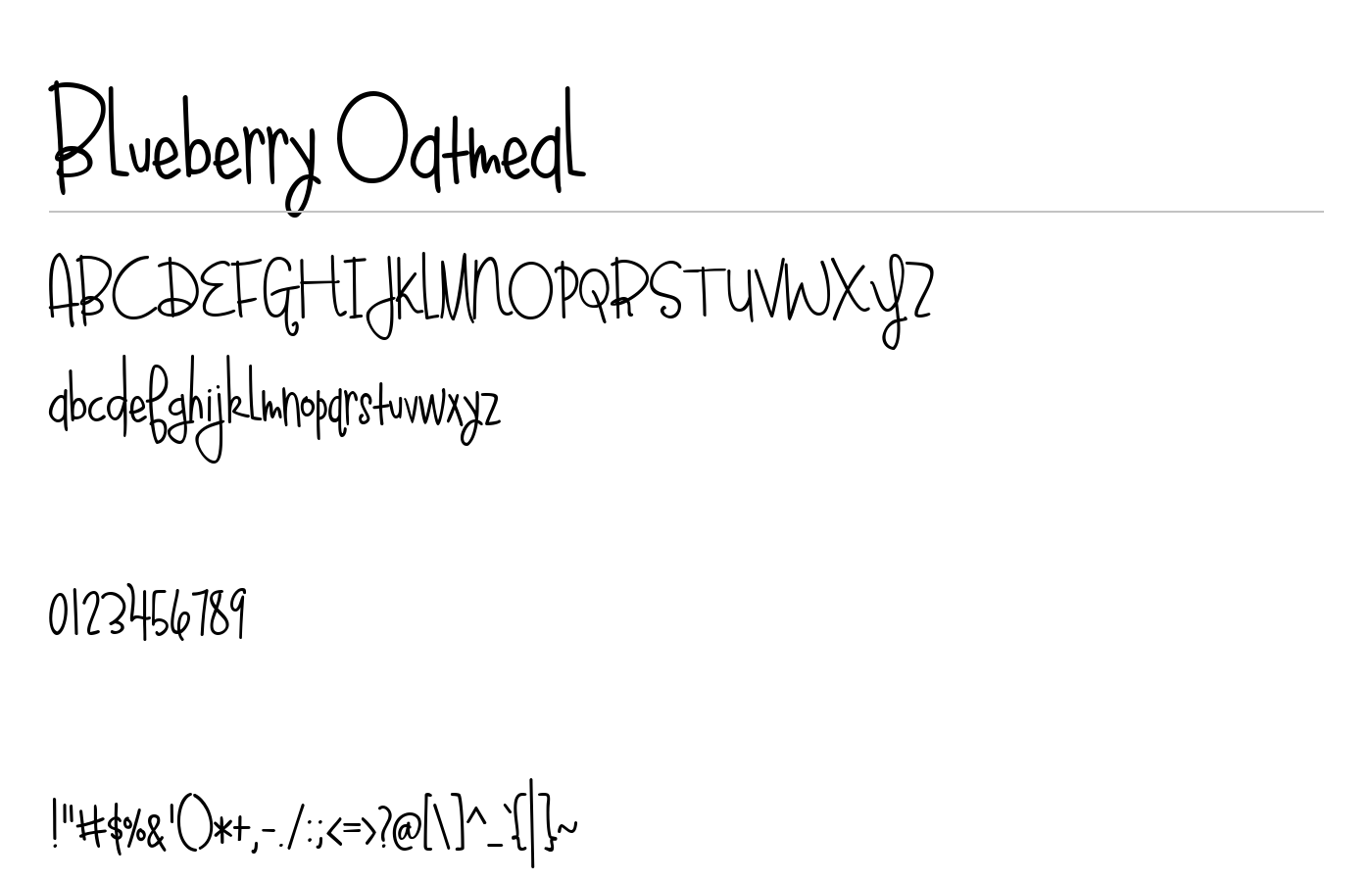
Blueberry Oatmeal is a playful, handwritten sans serif font with a tall, narrow build and casual, slightly quirky letterforms. Its thin strokes and irregular shapes give it a friendly, informal vibe, making it perfect for creative, fun branding, children’s materials, and lighthearted designs that want to feel personal and approachable. This font works well in headlines, invitations, or any design where a relaxed, hand-drawn touch is desired.
Blueberry Oatmeal Font
About Blueberry Oatmeal Font
| Font family | Blueberry Oatmeal Font |
| Designer | Brittney Murphy |